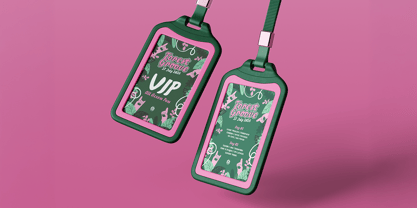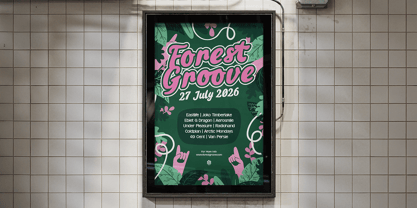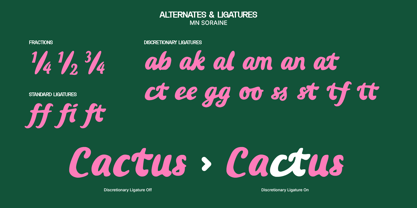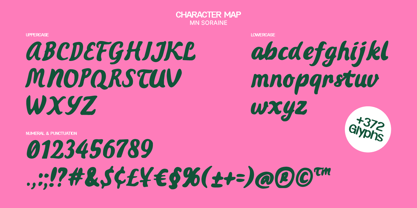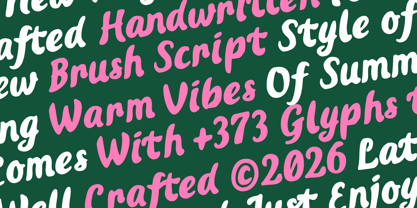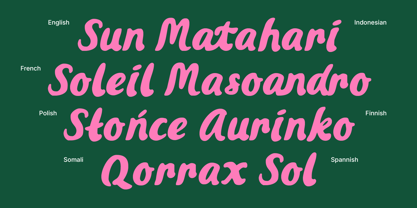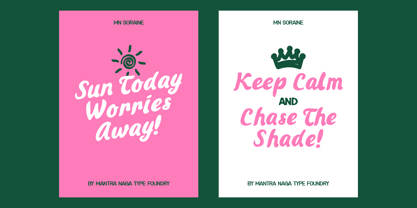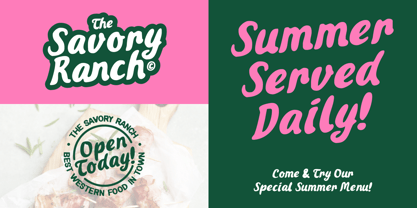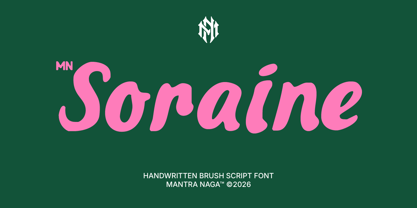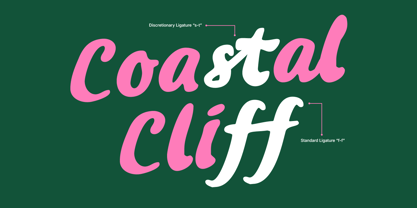
MN Soraine
by Mantra Naga Studio
The MN Soraine Font Family was designed by Fredo Eka Pratama and published by Mantra Naga Studio. MN Soraine contains 1 styles. More about this family
MN Soraine is a handwritten script font designed for brands that want to feel warm, natural, and memorable. With consistent thick strokes, a naturally flowing letter rhythm, and highly readable letterforms, this font brings the charm of classic hand-lettering into modern design. Crafted for summer festivals, seasonal events, and everyday branding, MN Soraine is the perfect font for festival branding, event signage, packaging design, logos, and social media content. Whether you’re designing a summer festival poster, a café menu, or a handcrafted product label, MN Solvane delivers personality and warmth in every letter. Every character is built to feel friendly yet confident, making it ideal for coffee shop branding, bakery and dessert packaging, lifestyle brands, wellness brands, and artisan handcrafted products. This versatile script font adapts beautifully across print and digital, from headlines and logos to labels and event collateral. If you’re looking for a handwritten font for festivals, a script font for summer branding, or a warm display font for creative projects, MN Soraine is made for you.
Designers: Fredo Eka Pratama
Foundry: Mantra Naga Studio